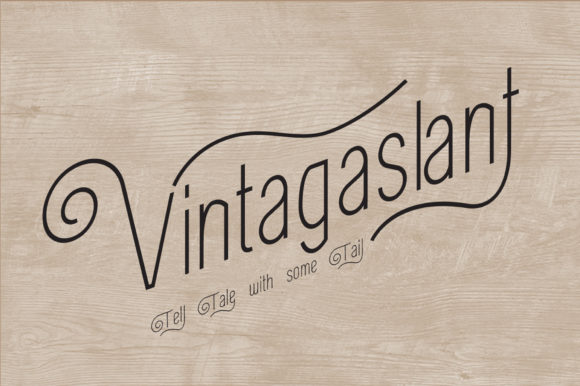
Prepare to be enchanted by VintagaSlant, a display font that will whisk you back to the golden era of yesteryear. Its graceful curves and distinctive slant evoke a touch of nostalgia, making it the perfect choice for adding a timeless elegance to your designs.
With VintagaSlant, the possibilities are limitless. Elevate your branding with a logo that exudes sophistication. Create captivating social media posts that ooze vintage charm. Design invitations and greeting cards that transport recipients to a bygone era. The creative journey is yours to explore!
But VintagaSlant isn't just about its captivating aesthetics. It's also incredibly versatile, making it suitable for a wide range of projects. Whether you're working on a retro-themed website, a vintage-inspired poster, or a heartfelt letter, VintagaSlant will effortlessly add a touch of timeless beauty.
Indulge in the exquisite details of VintagaSlant. Its PUA encoding allows you to effortlessly access a treasure trove of glyphs and swashes, empowering you to add intricate embellishments and flourishes to your designs. The possibilities are endless, and the results will captivate and inspire.
Embrace the allure of VintagaSlant and embark on a creative adventure where nostalgia meets endless possibilities. Download it today and let its enchanting charm transform your designs!